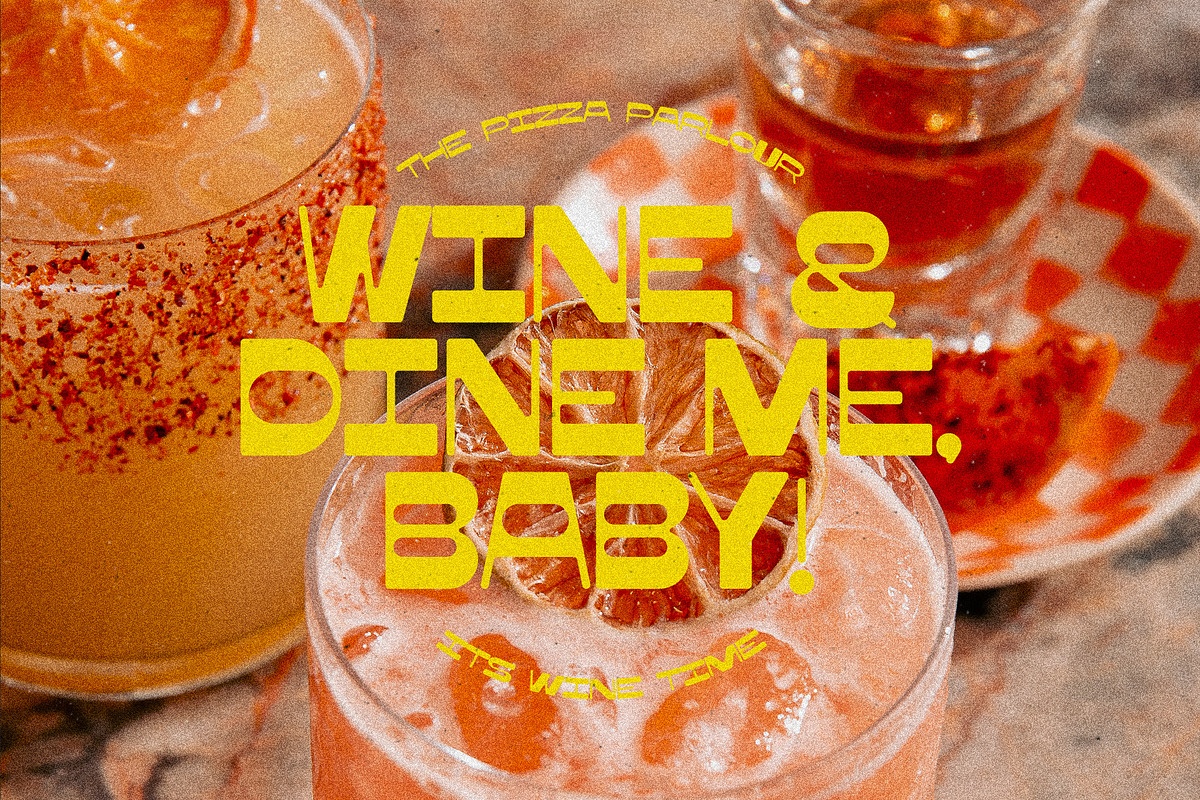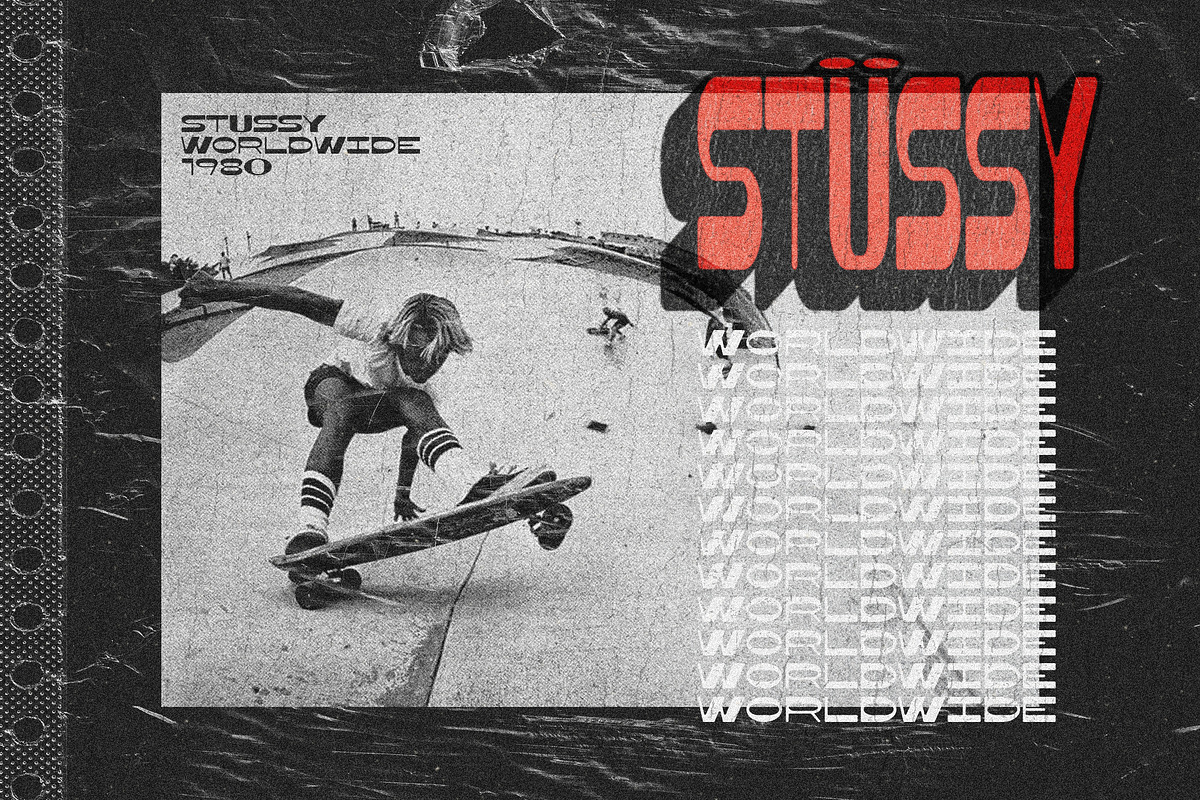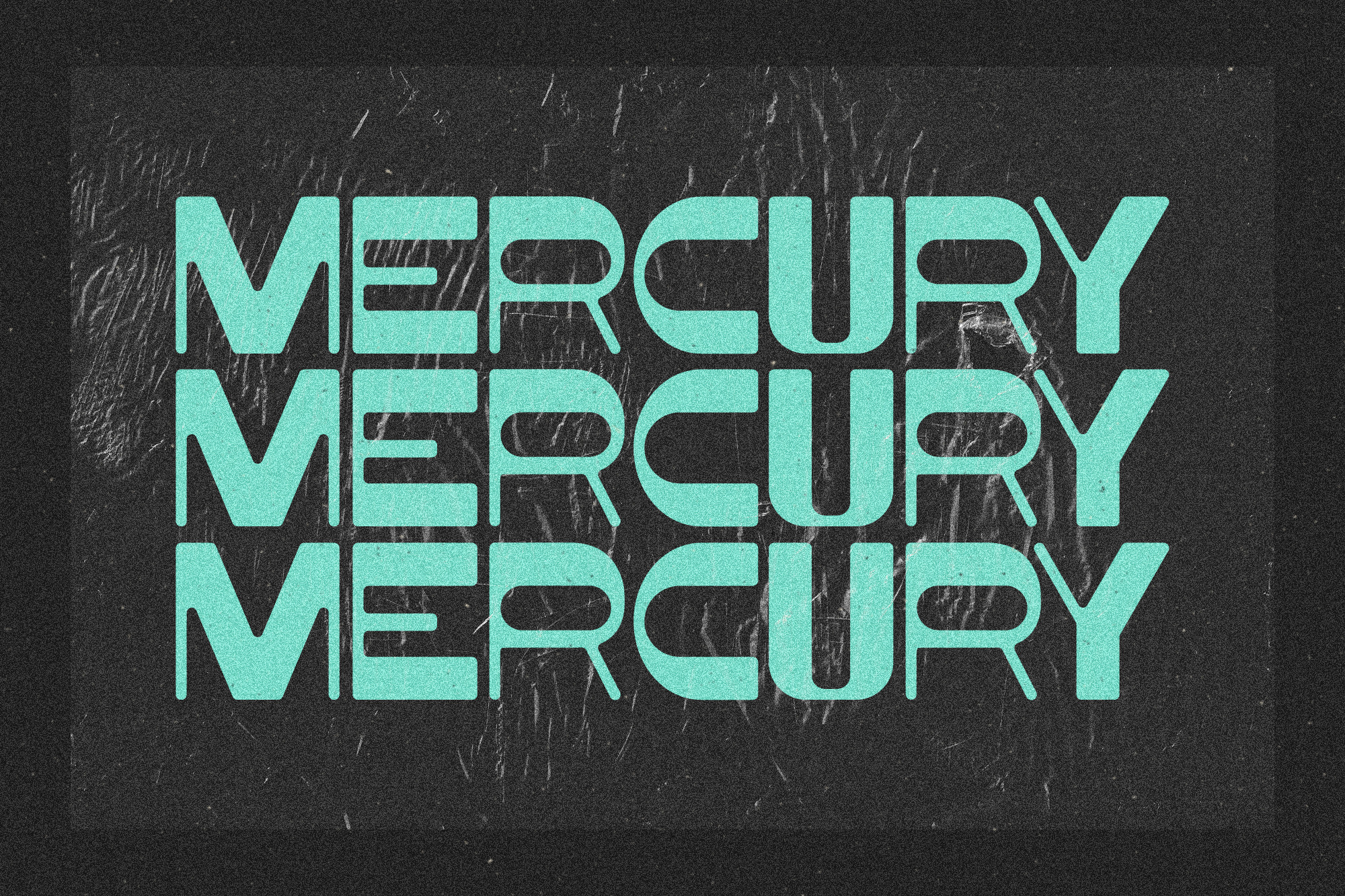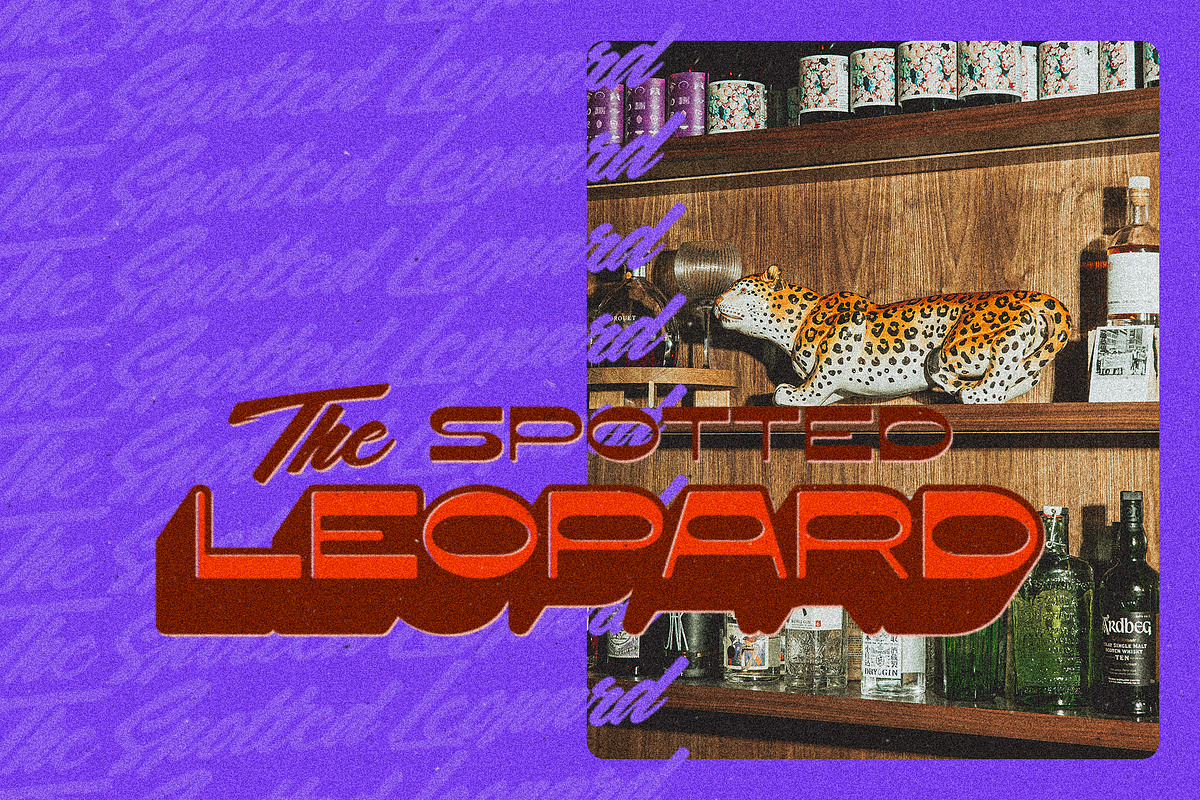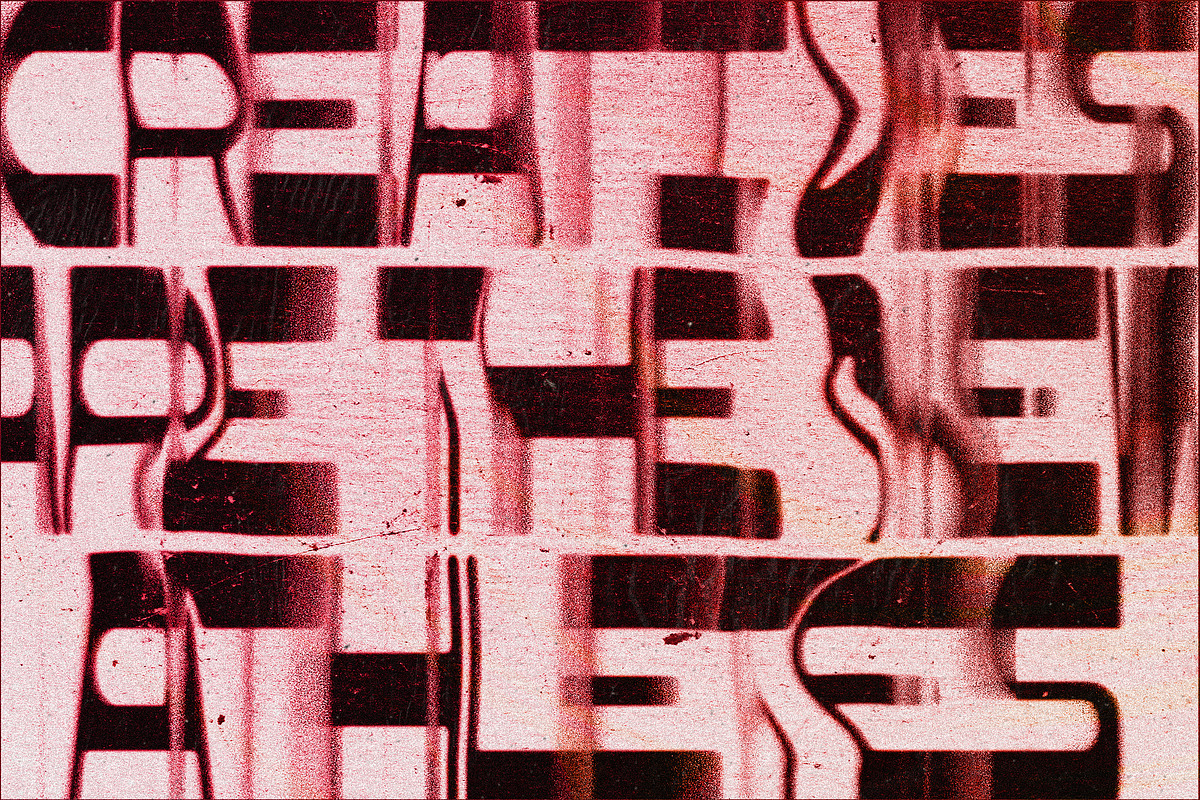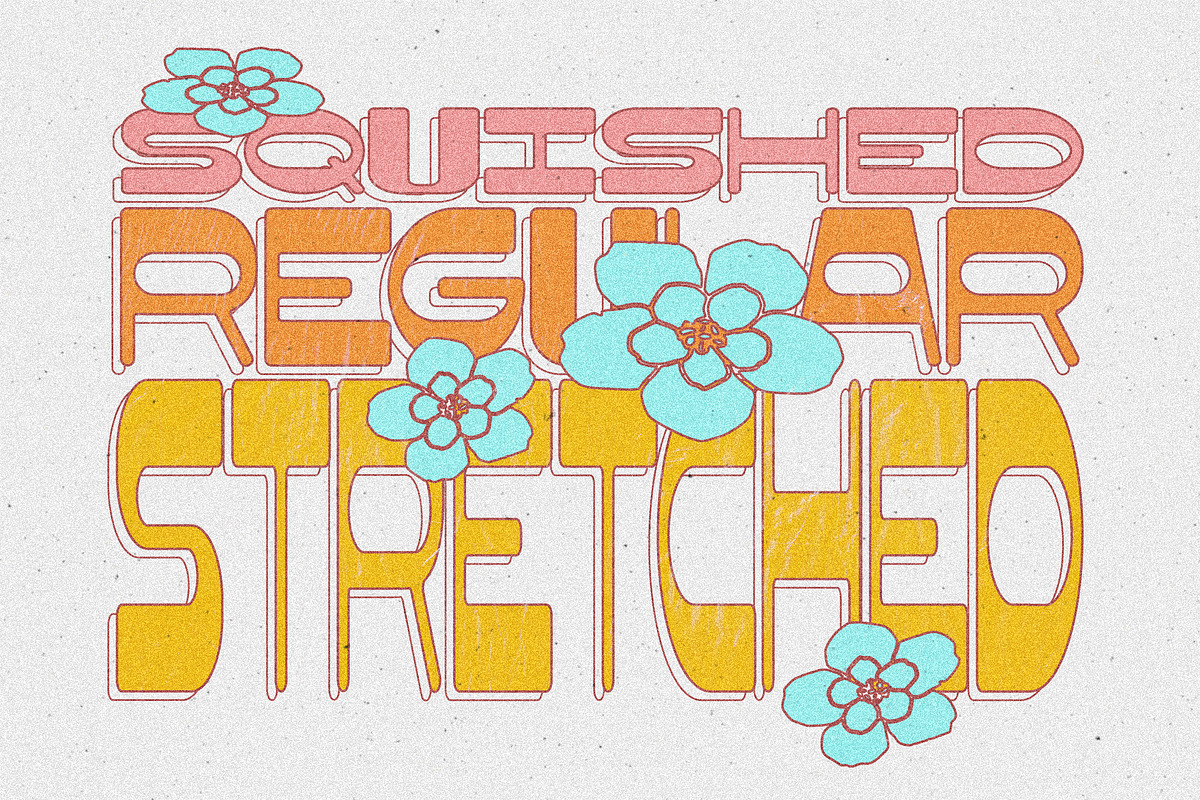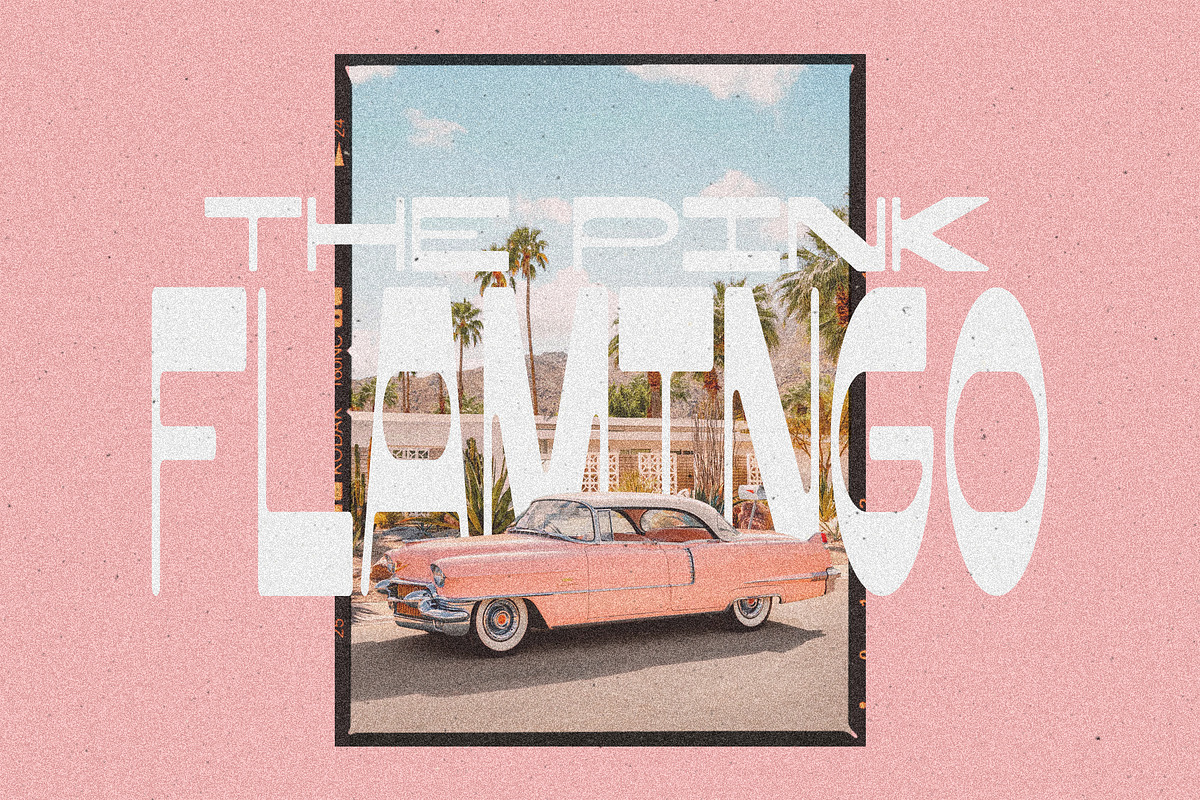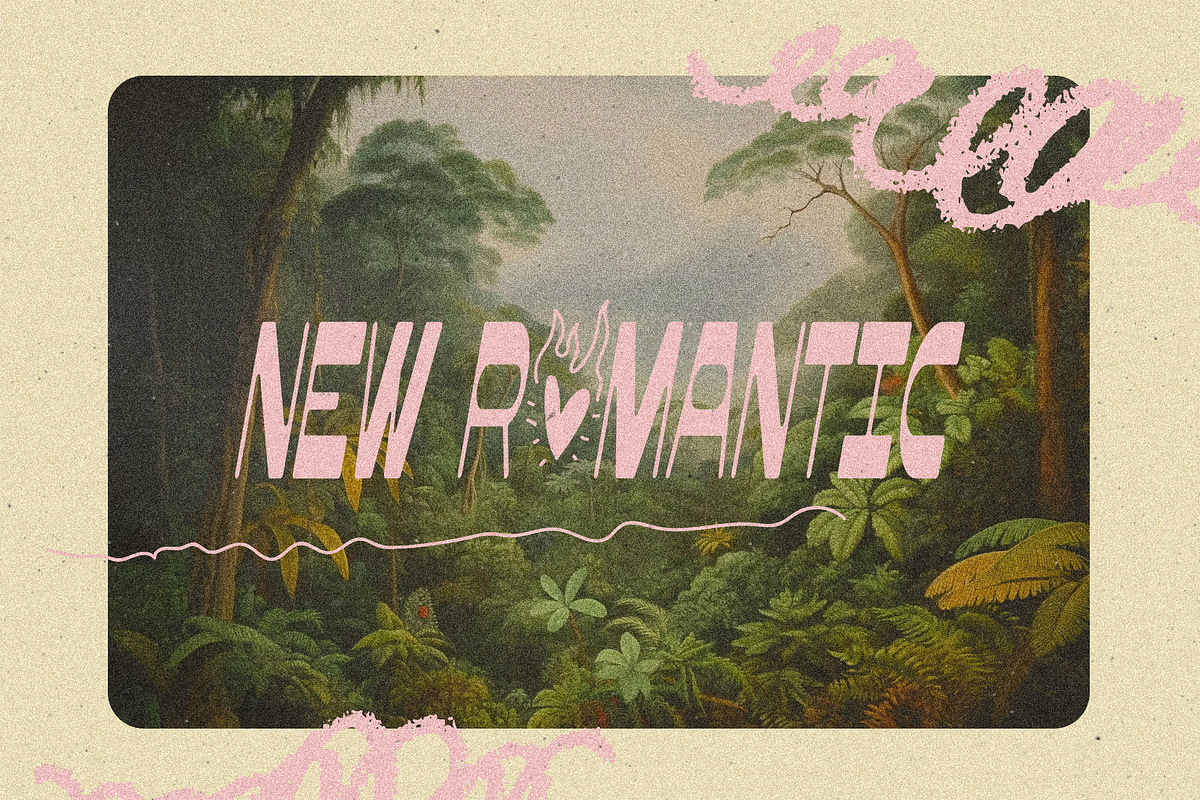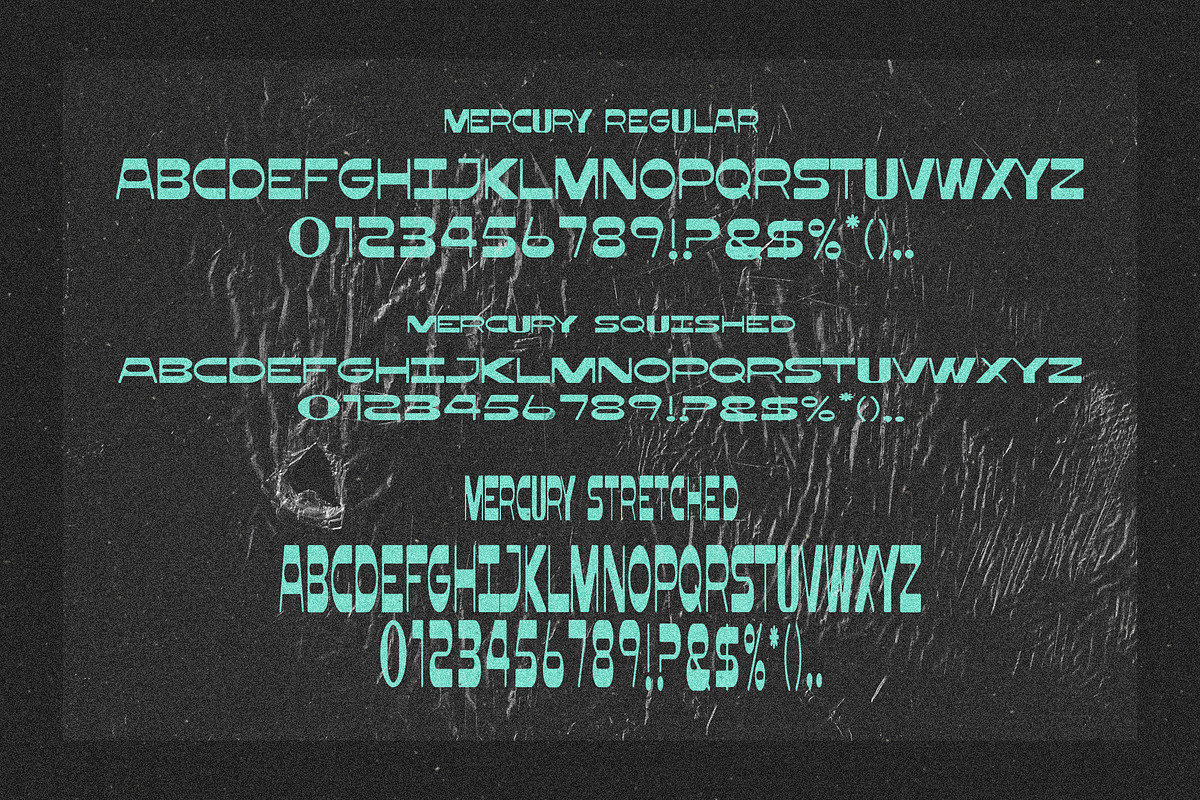
MERCURY Font
Introducing Mercury Font
Mercury Font is a sleek, unique & vintage inspired font. Mercury is perfect for all large heading text and is versatile with any font! Perfect for all projects.
Includes: Mercury Regular / Mercury Squished / Mercury Stretched.
Features: All Caps Font + Numerals.